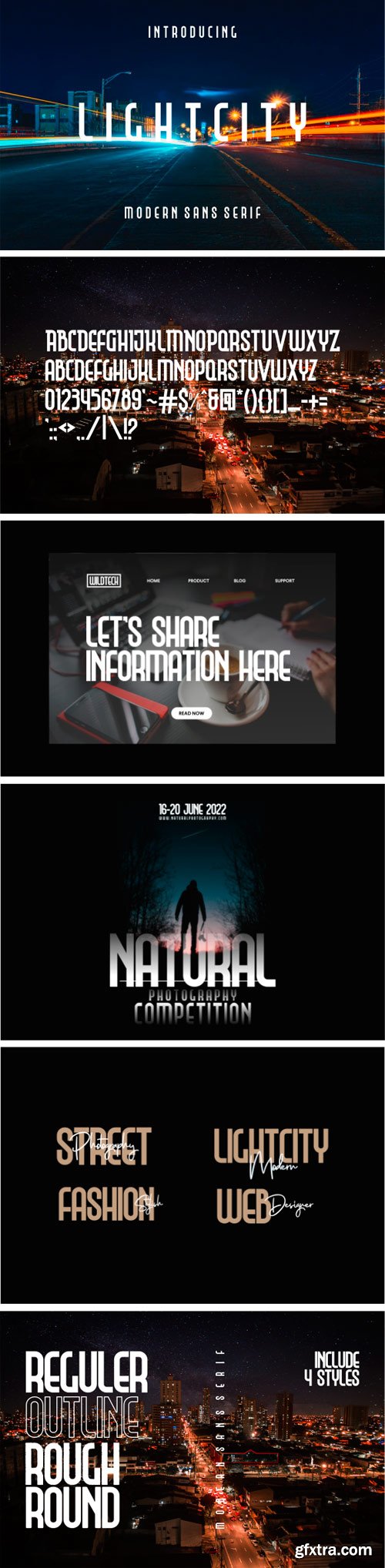
LIGHT CITY FONT
Light City Font
The Light City is a sans serif with a modern and sophisticated style. It’s inspired by today’s modern and sophisticated life, which makes it perfect for things related to modern designs such as websites, posters, print templates, modern logos, and others designs that need a modern sense. It has 4 different styles that you can combine, from ordinary styles to curves and lines and rough styles.